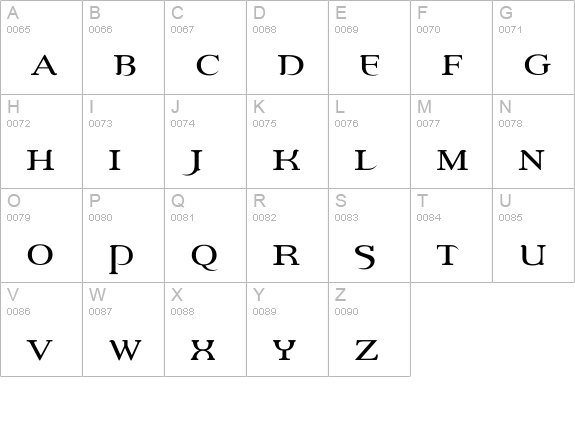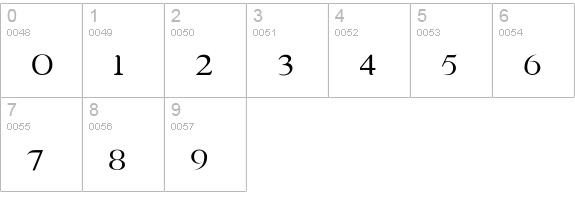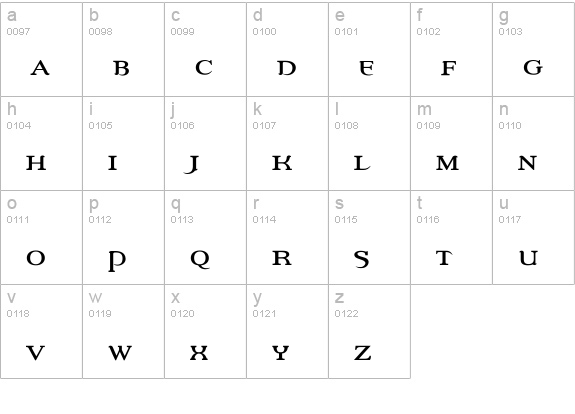
Percolator-Expert Font Details
Percolator-Expert font is a versatile and stylish typeface that exudes professionalism and sophistication. This font is perfect for a wide range of design projects, from print materials to web graphics, as it effortlessly captures attention and adds a touch of elegance to any composition. With its sleek and modern aesthetic, Percolator-Expert font is sure to make your designs stand out from the crowd. Its clean lines and well-balanced letterforms create a harmonious visual experience, while its legibility ensures that your message is easily conveyed to your audience. One of the standout features of Percolator-Expert font is its versatility. Whether you are designing a logo, creating a magazine layout, or crafting an eye-catching advertisement, this font can adapt to suit your needs. Its various weights and styles provide flexibility, allowing you to choose the perfect option for every project. What sets Percolator-Expert font apart is its exceptional quality and attention to detail. Each character is meticulously crafted, ensuring a flawless and professional finish. This font is a true work of art, created by experienced typographers who understand the importance of excellent typography in design. And the best part? Percolator-Expert font is absolutely free! You can easily download it from FontsMarket.com, a reputable website that offers a wide range of high-quality fonts for designers. With this font, you can elevate your designs without breaking the bank. So why wait? Enhance your design projects with the timeless elegance and versatility of Percolator-Expert font. Download it for free at FontsMarket.com and unleash your creativity today.